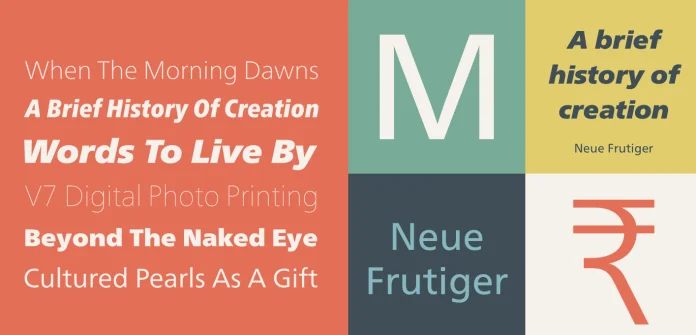
Neue Frutiger Font is perfect for corporate identity systems, wayfinding signage, transportation graphics, airport terminals, healthcare facilities, educational materials, government publications, technical documentation, user interface design, annual reports, pharmaceutical packaging, and professional presentation materials.
What makes Neue Frutiger Font exciting is its legendary reputation as one of the most trusted and versatile typefaces in professional design, combining exceptional legibility with timeless aesthetic appeal. This masterfully crafted typeface represents the pinnacle of Swiss typography, offering unparalleled clarity and neutrality that works seamlessly across cultures and languages. The font's humanist characteristics provide warmth and approachability while maintaining the precision and reliability required for critical communication environments. Its proven track record in high-stakes applications makes it the gold standard for designers who prioritize functionality without sacrificing visual excellence.
The Neue Frutiger Font family offers an extensive range of weights from ultra-light to black, including condensed and extended versions. The comprehensive family features regular, italic, and compressed styles across multiple weights, providing designers with complete typographic flexibility for complex information hierarchies and multilingual applications.
Whether you're developing comprehensive brand systems, designing public information displays, or creating professional documentation, Neue Frutiger Font Free Download delivers the reliability and sophistication that industry leaders demand. This premium typeface has established itself as the preferred choice for international organizations, government agencies, and Fortune 500 companies worldwide. The font's exceptional performance in challenging reading conditions makes it ideal for critical communication environments where clarity can impact safety and understanding. Professional designers and typographers recognize its superior craftsmanship and extensive language support covering over 200 languages and writing systems. The font's neutral personality allows brand identity to shine through while ensuring optimal readability across all media. When you choose this iconic typeface for your projects, you're selecting a typography solution that has proven its excellence in the most demanding professional contexts, providing your communications with credibility, clarity, and enduring visual appeal that transcends cultural boundaries and design trends.